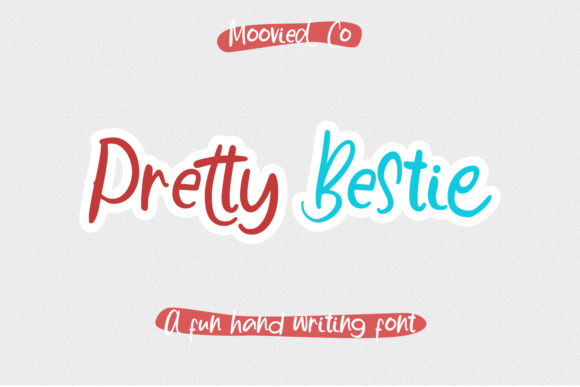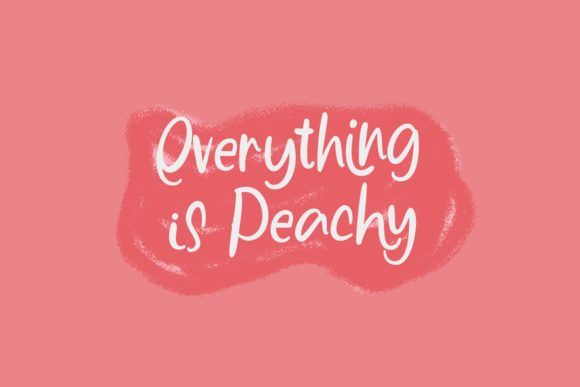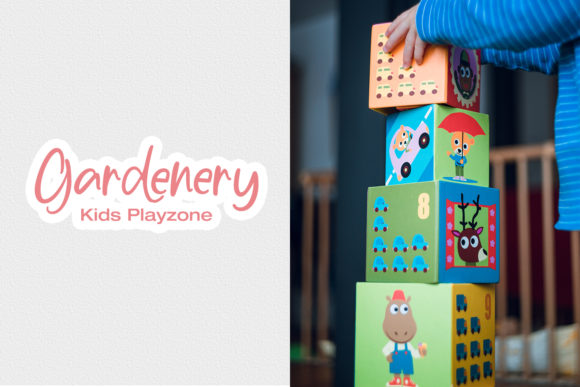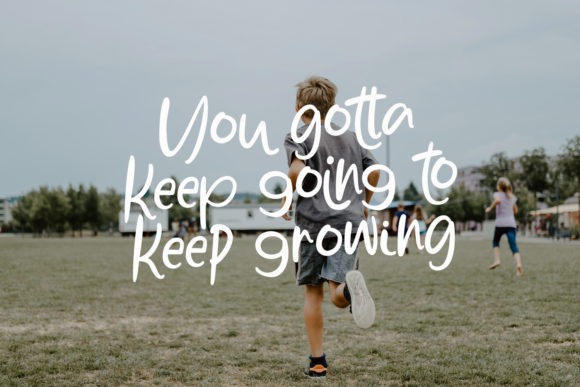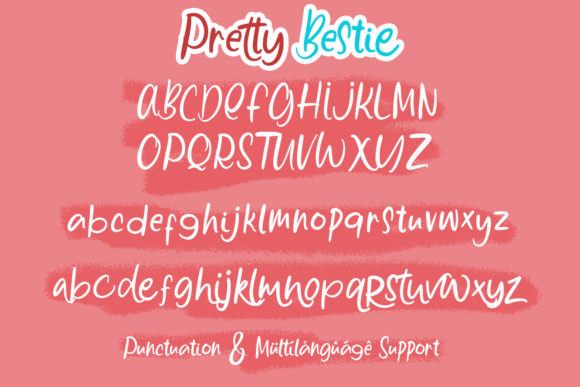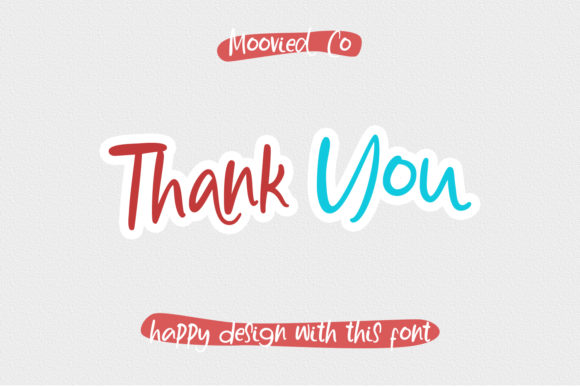
Pretty Bestie Font
About Pretty Bestie Font
Pretty Bestie is a casual, fun handwritten font, created by using a brush pen. Clean and a little bit quirky, this font is the perfect fit for all of your logos, branding, social media, and crafty DIY projects.